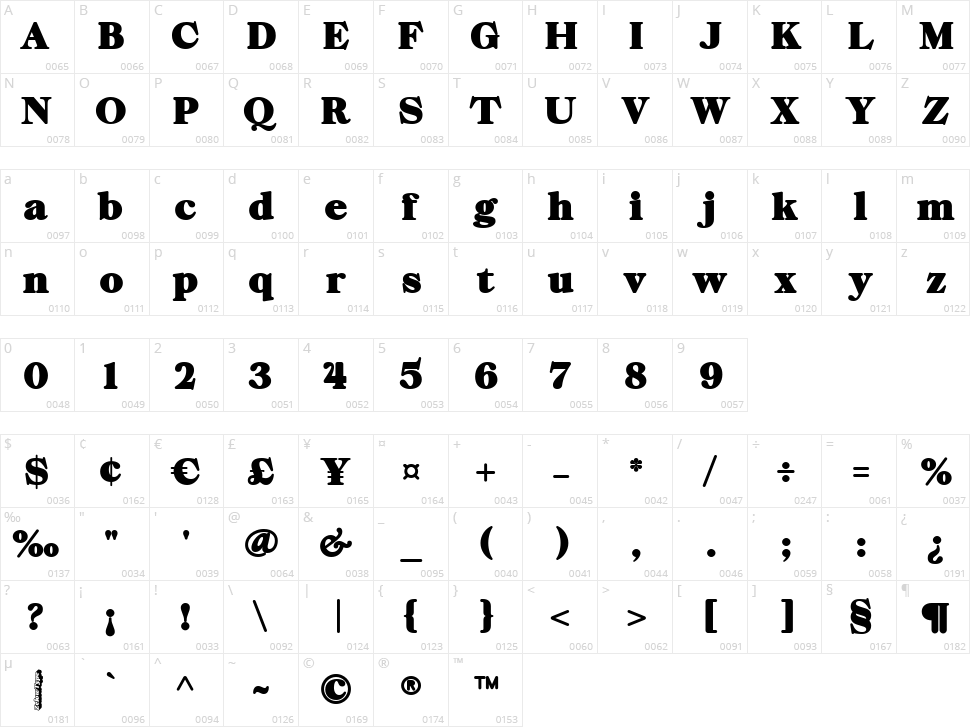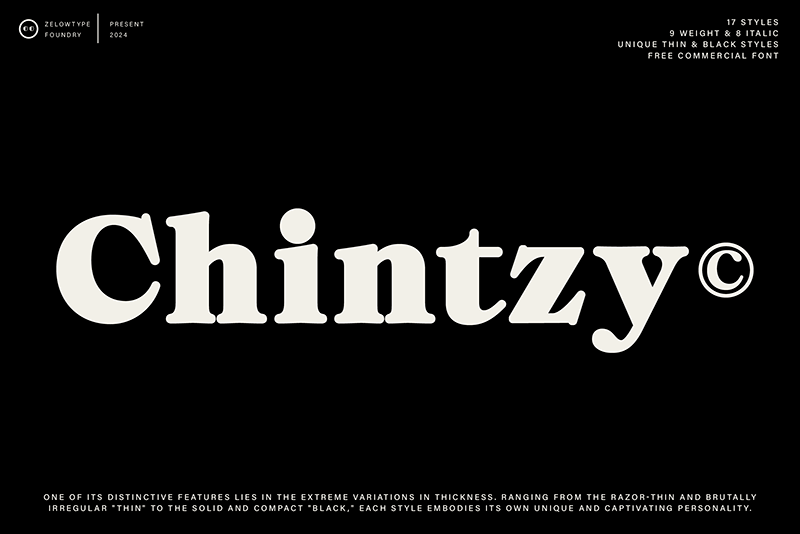
ZT Chintzy Heavy
"ZT Chintzy" pays homage to the expressive, soft, and rounded serif typography of the 1960s and 1970s era. Its gentle and captivating serifs evoke warmth and nostalgia reminiscent of that era's typefaces.
Features of the "ZT Chintzy" font include:
- 9 Plain Weights & 8 Italic Weights
- Expanded Latin Character Set
- Standard Ligatures + Discretion
- Stylistic Alternatives
- Punctuation & Symbols
- Over 487 Unique Characters
- Elegant Serif Style
| Designer Name: | Zelow Type |